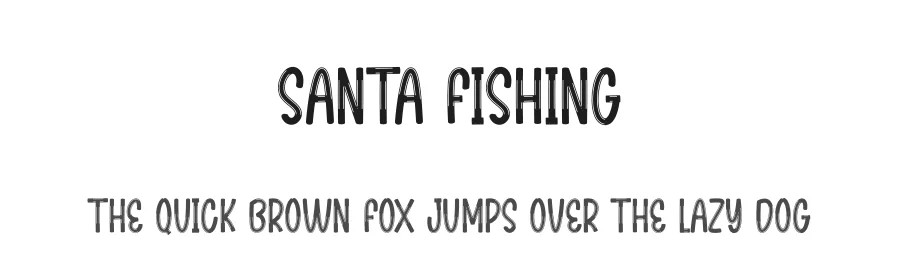
About Gezzy Font
Gezzy is a decorative font designed by Gabby Burleson. It includes 57 glyphs, TTF (TrueType) format, and 89 languages. Gezzy is free to download; check the license details on this page before commercial use. Decorative fonts like Gezzy work best for logos, posters, packaging, and standout headlines.
Gezzy Font is a decorative font that shines as a display or heading face. Pair it with a clean sans-serif or serif font for body text β the contrast creates a clear hierarchy while the two styles stay balanced and easy to read.
Gezzy Font
Gezzy Font is a decorative typeface by Gabby Burleson, ideal for logos, invitations, branding, and creative projects.